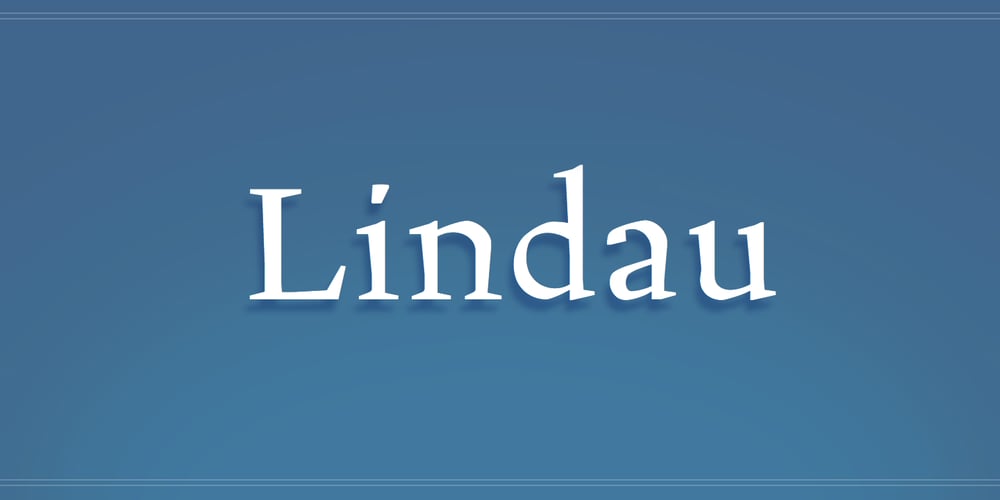
Lindau
Lindau font
Lindau Font Family was designed by Andreas Stötzner and published by SIAS. Lindau contains 1 styles and family package options. Lindau is a new take on the Jensonian Roman typeface genre. The idea was to combine the Venetian proportions with a conical shaping of the vertical parts. Lindau may be considered an alternative to fonts like Jenson, Centaur, Trump Medieval or Deepdene. Suitable for ads, stationary, branding and label design, headlines and short to medium-length text bodies. Lindau is layed out with comprehensive character support for every Euro-Latin language.